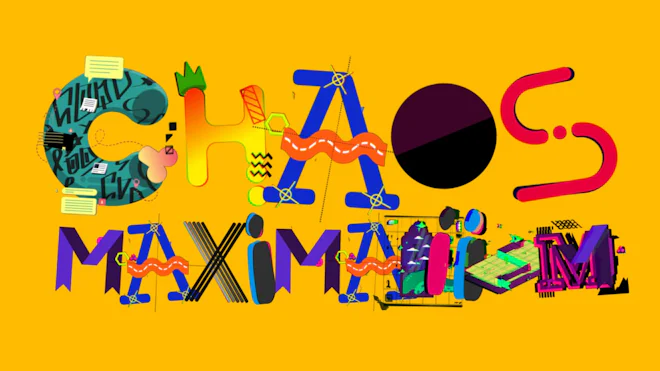
This stock motion graphics video pack includes 45 different clips of colourful collage typefaces - letters, number, and symbols in chaos maximalism style on a transparent alpha channel.